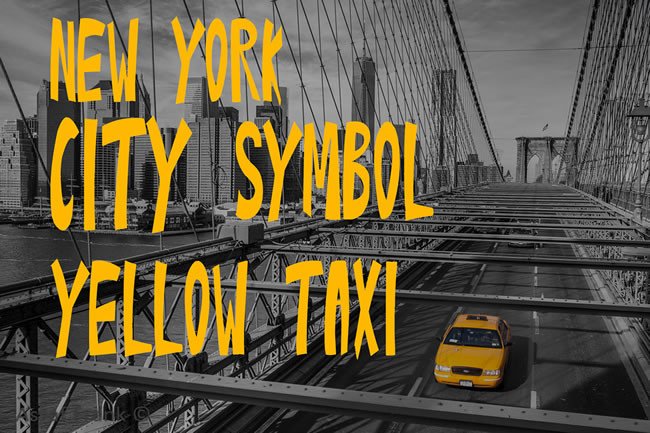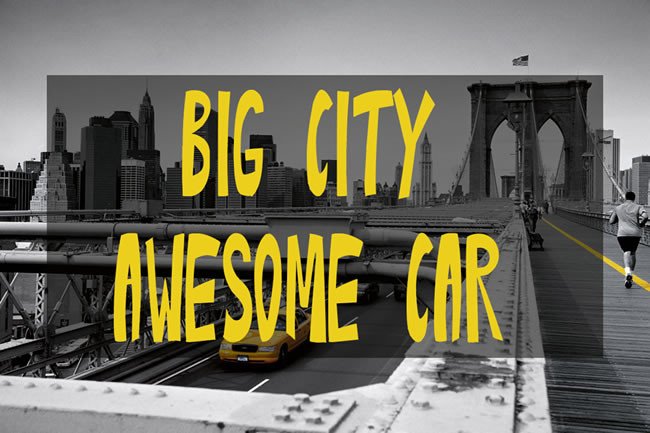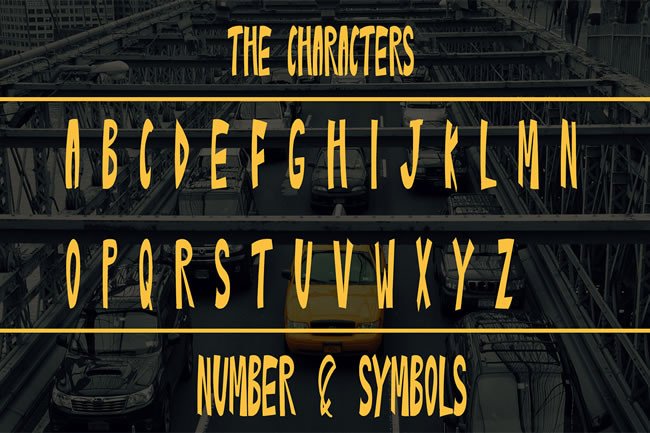
The Ascaprol Font: A Designer’s New Best Friend
I still remember the frustration of working on a project, hours poured into every detail, and then getting stuck on one thing: finding the perfect font. It was for a client’s logo design, and I wanted something that would make their brand stand out. After what felt like an eternity of scrolling through font libraries, I stumbled upon Ascaprol. And just like that, my design woes disappeared! ✨
An Honest Review of Ascaprol
- ✅ Its versatility – perfect for headings, signatures, logos, and so much more
- ✨ The elegant, sophisticated feel it brings to any design
- 🔍 A wide range of uses, from t-shirts to letterheads, signage, posters, badges, and beyond
- 💻 Excellent for both digital and print projects
While Ascaprol is incredibly versatile, there are a few things to keep in mind:
- ⚠️ It might not be the best choice for body text due to its elegant, yet somewhat ornate nature
- 🤔 Some users might find it a bit too decorative for certain projects, like a simple business card
One of Ascaprol’s strengths is its support for OpenType features. This means you can access stylistic alternates, swashes, and other glyphs to add more personality to your text. In compatible software like Adobe Photoshop and Illustrator, you can find these options in the Character panel or through the Glyphs window.
The Backstory of Ascaprol
While the origins of Ascaprol might not be well-documented, it’s clear that it was designed with versatility and beauty in mind. Imagine a designer, passionate about typography, sitting down to create a font that could be used in a multitude of creative projects. They wanted something elegant, yet approachable; something that could elevate a design without overpowering it. And so, Ascaprol was born.
| Author | Only The Originals |
Q: Is Ascaprol suitable for body text?
A: While it’s elegant and beautiful, Ascaprol might not be the best choice for extensive body text due to its decorative nature. It’s perfect for headings, titles, and short paragraphs.
Q: Does Ascaprol support OpenType features?
A: Yes, Ascaprol supports OpenType features, allowing for a range of stylistic alternates and glyphs to enhance your designs.